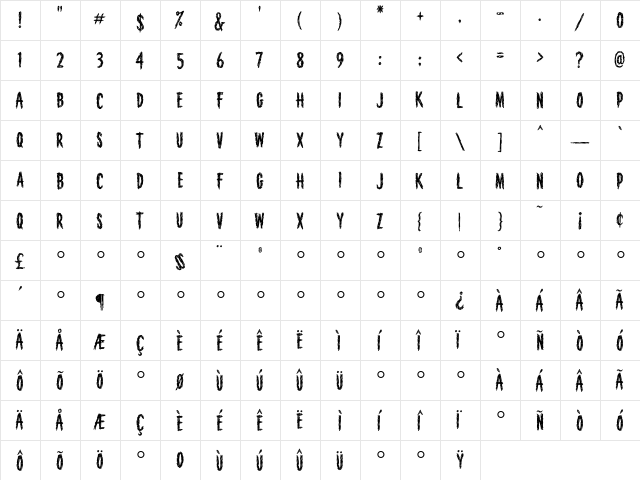
HouseofHorror Regular
Design Context for HouseofHorror Typeface
HouseofHorror leans into the macabre with letterforms designed to disturb and intrigue in equal measure.
Perfect for anything that needs to unsettle — game titles, horror branding, and macabre invitations.
Font Pairing: Pair with a clean neutral sans-serif for body copy to let HouseofHorror's character lead without overwhelming the composition.
Pro Tip: Use HouseofHorror at larger display sizes for maximum impact. Consider generous tracking to let the disturbing character of each letterform breathe.